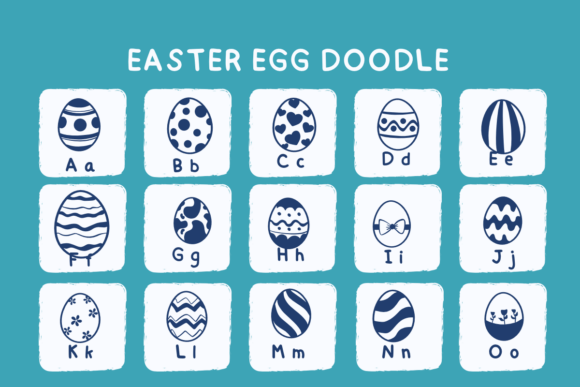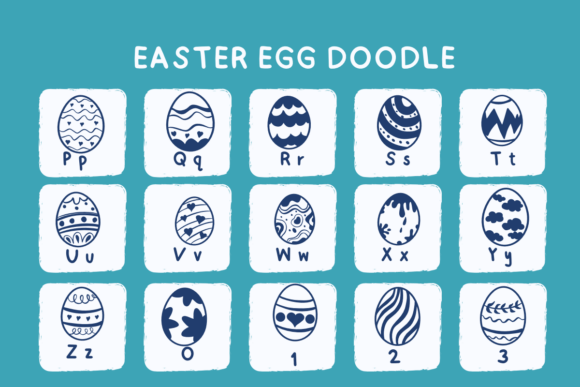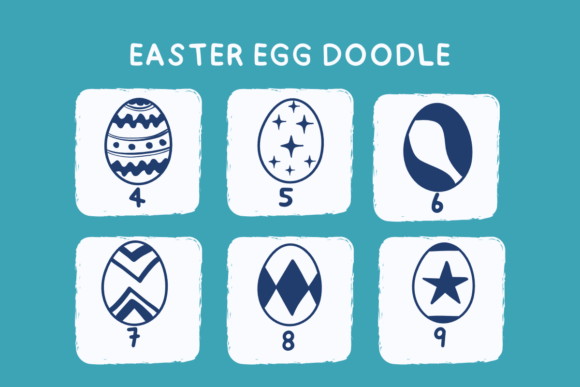
Unleash Your Creativity with the Easter Egg Doodle Font
Have you ever been brainstorming a project and suddenly, a spark of inspiration hits you? You envision a design that’s vibrant, whimsical, and full of life. For many creatives, this moment is the key to unlocking their true potential. But, bringing this vision to life can be a challenge. That’s where the Easter Egg Doodle Font comes in – a beautiful dingbat font that’s perfect for adding an extra layer of charm to your creative endeavors.
This distinctive font is ideal for designers looking to add a touch of personality to their work. Whether you’re crafting invitations, designing DIY projects, or creating decorations, the Easter Egg Doodle Font is a valuable asset that can help bring your ideas to life. Its unique design makes it perfect for logos, allowing your brand to stand out from the crowd.
Easter Egg Doodle Font Key Features
- Unique Characteristics: The Easter Egg Doodle Font features a playful, whimsical design with intricate doodle elements, making it perfect for adding a touch of personality to designs.
Easter Egg Doodle Font Review
Overall, I was quite excited to work with the Easter Egg Doodle Font, and here’s my honest take on it.
The Easter Egg Doodle Font is a unique and playful addition to any design project. The font’s whimsical feel makes it perfect for spring and Easter-themed projects, or even just adding a fun touch to a child’s birthday card. The font’s consistency is also a plus, with each letter and symbol carefully crafted to maintain a cohesive look.
While the Easter Egg Doodle Font is great for certain projects, it may not be the best choice for more formal or professional designs. The font’s lighthearted and childlike nature may not be suitable for corporate or business materials. Additionally, the font’s size may not scale well, so be sure to test it at various sizes to ensure it remains legible.
In conclusion, the Easter Egg Doodle Font is a great addition to any designer’s toolkit, especially for spring and Easter-themed projects. However, it’s essential to keep its limitations in mind when choosing a font for your design project.
Things to Consider
- Project type: The Easter Egg Doodle Font is best suited for casual, playful projects.
- Font size: Test the font at various sizes to ensure it remains legible.
- Design style: The font’s whimsical feel may not be suitable for formal or professional designs.
The Easter Egg Doodle Font is ideal for:
- Creating playful and whimsical designs for Easter-themed events or products.
- Adding a touch of nostalgia and retro charm to modern designs.
- Designing children’s products or educational materials.
To get the most out of the Easter Egg Doodle Font, try:
- Pairing it with bold and bright colors to create a playful contrast.
- Using it